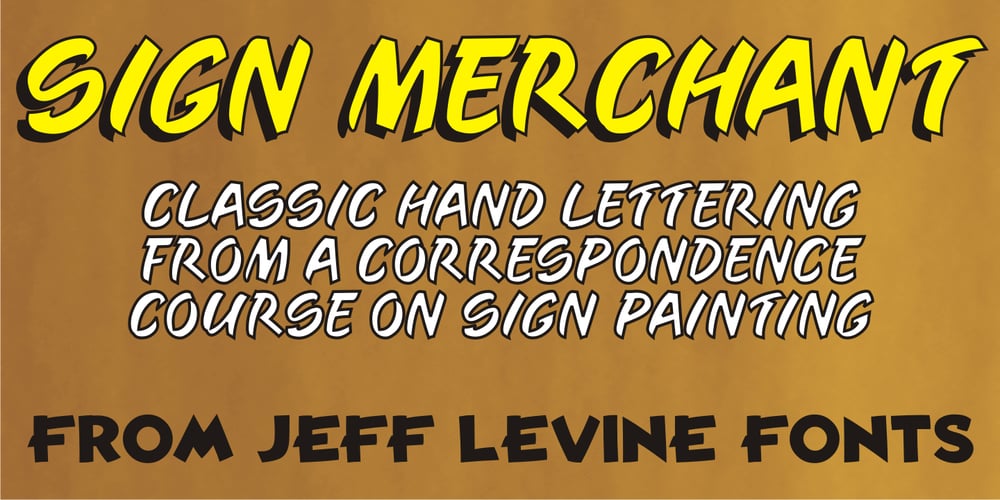
Sign Merchant JNL Font Family was designed by Jeff Levine and published by Jeff Levine. Sign Merchant JNL contains 1 styles and family package options. There was a time in this country when many young people studied a trade via a correspondence course through the mail. While this method still exists, it’s now more common to find students taking online classes. From an early-1960s course in sign painting comes Sign Merchant JNL, a classic brush stroke type design popularized on show cards and posters.